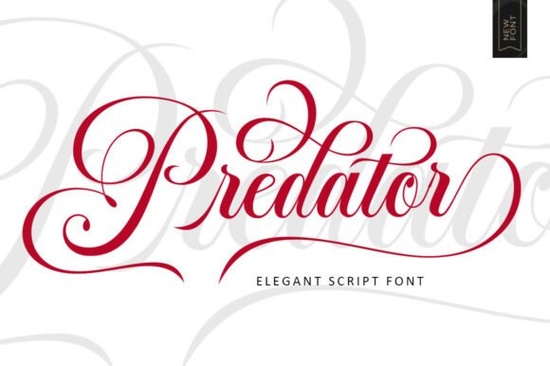
If you're looking for a script font that feels both timeless and modern, Predator Font is worth exploring. It’s designed with care each letter flows naturally, making it perfect for projects where elegance matters. Whether you’re creating wedding invitations, designing packaging, or adding flair to a logo, this font delivers clean lines and graceful connections that feel luxurious without being overwhelming.
What makes Predator Font stand out?
Unlike many script fonts that lean too heavily into one style, Predator strikes a balance. It has a soft, feminine touch but remains readable at small sizes ideal for menus, labels, and stationery. The design includes multiple variations: uppercase, lowercase, alternates, numbers, punctuation, and full multilingual support. That means you can use it across different languages and still maintain visual consistency.
The font’s strength lies in its subtle details. The way the letters connect especially in flowing phrases adds movement and rhythm to your text. It’s not overly ornate, so it won’t distract from your message. Instead, it enhances it, giving your design a polished, professional finish.
Where can you use Predator Font?
This versatile typeface works well in a range of creative applications:
- Wedding invitations and save-the-dates (paired with minimalist layouts)
- Restaurant menus and café branding
- Fashion labels and beauty product packaging
- Book covers and chapter headings in novels or magazines
- Greeting cards, thank-you notes, and personal stationery
- Logo designs for boutiques, spas, or lifestyle brands
- Print-on-demand products like mugs, tote bags, and wall art
You’ll find it especially useful if you’re working on anything that benefits from a handwritten feel but still needs to look refined. It’s not just for weddings it’s also great for seasonal designs, gift tags, or even social media graphics that need a touch of class.
How does it compare to similar fonts?
If you’ve used other script fonts like Violyn Wedding Thivoria or Signature Writing Fonts, you’ll notice that Predator Font offers more variation within a consistent style. While some scripts are either too bold or too delicate, this one stays balanced. Its spacing and stroke weight make it suitable for both short phrases and longer blocks of text.
When choosing a script font, it helps to think about how it will be used. Predator Font excels in digital and print formats alike. It renders clearly on screens and prints crisply no fuzzy edges or broken strokes.
Getting started with Predator Font
Once downloaded, you’ll find all the essentials included: upper and lowercase letters, alternate characters for variety, numbers, punctuation marks, and full multilingual support. This means you can write in English, Spanish, French, German, and more all with the same elegant flow.
Want to see how it looks in action? Try pairing it with a simple sans-serif font for contrast. For example, use Predator Font for headings and a clean typeface like Open Sans for body text. This combo keeps your design legible while letting the script shine.
Final thoughts
Predator Font isn’t flashy, but it’s reliable. It’s built for creators who value clarity, grace, and versatility. Whether you’re a small business owner, a crafter, or someone who loves crafting beautiful designs, this font fits naturally into your workflow.